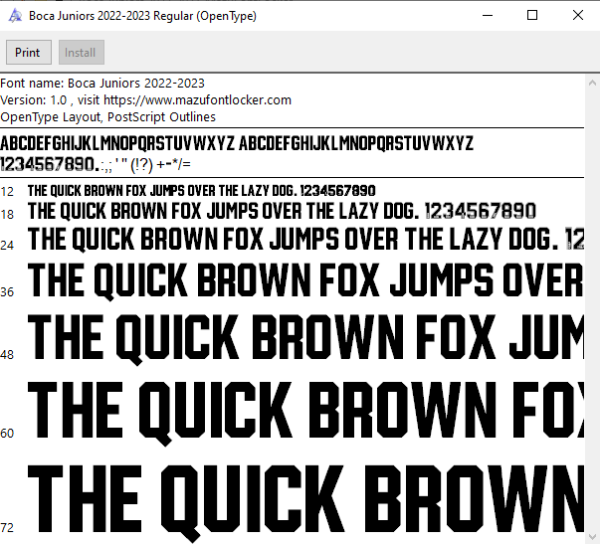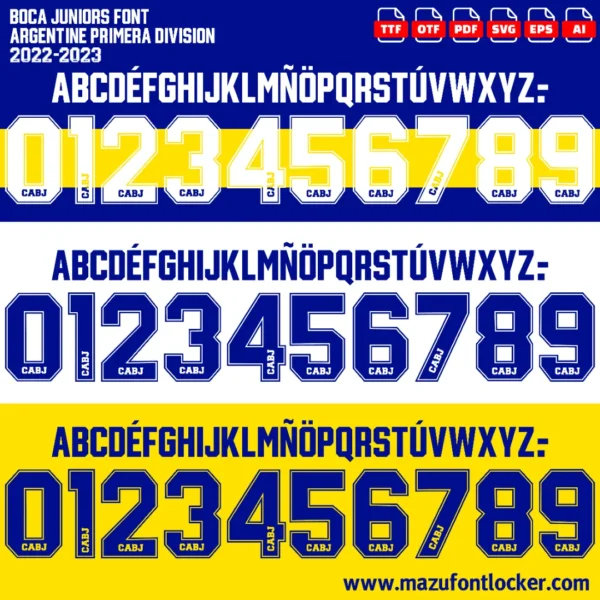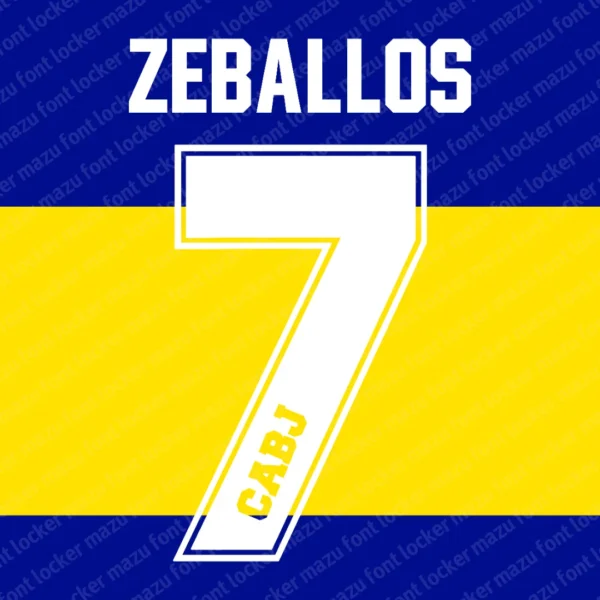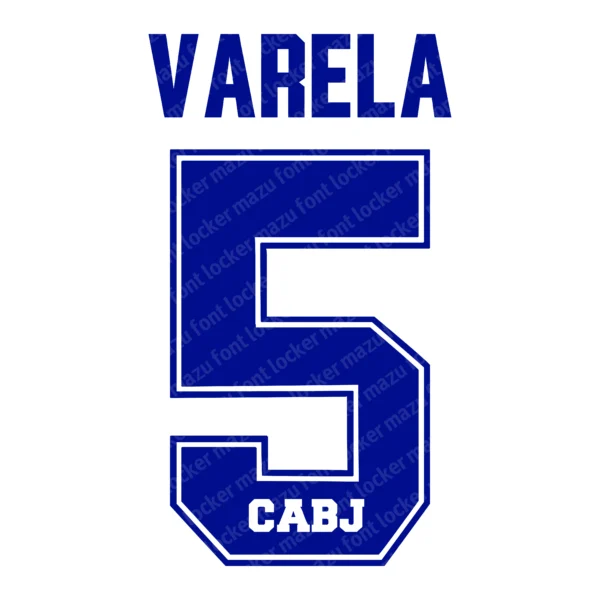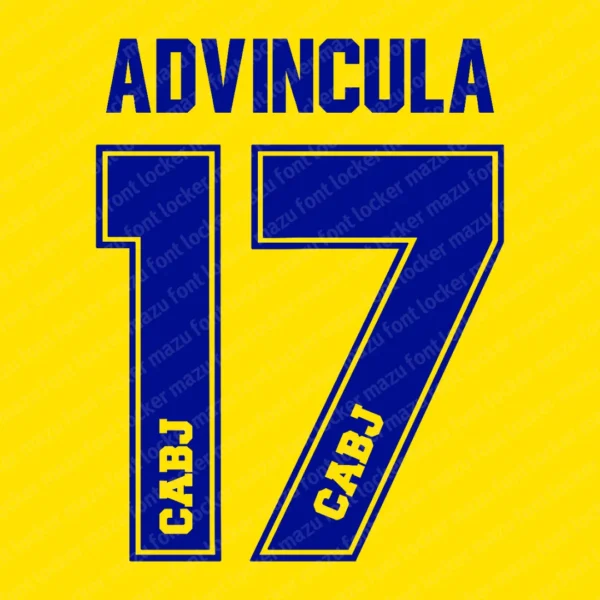
Boca Juniors 2022-2023 Font Vector – Legendary Boca La Bombonera Glory
This premium font captures the bold, fierce, and championship-driven typography that perfectly embodies the spirit of the Xeneizes — delivering pure Argentine fire, relentless ambition, warrior-like determination, attacking flair, and the legendary football culture that transformed Boca Juniors into one of South America’s most feared and celebrated football giants.
Boca Juniors 2022-2023 Font Vector – Stunning Xeneizes Champions Typeface
The Boca Juniors 2022-2023 Font Vector is a premium typeface that accurately recreates the official match lettering worn by Boca Juniors during the 2022-2023 season. This high-quality vector font kit captures the bold, passionate, and iconic typography that defines one of the biggest clubs in South American football.
Designed for professional designers, football enthusiasts, and Boca Juniors supporters, the Boca Juniors 2022-2023 Font Vector delivers authentic results for jersey mockups, fan merchandise, retro football projects, social media graphics, and matchday designs. It perfectly complements the legendary blue-and-gold kits worn by Los Xeneizes throughout the 2022-2023 campaign.
Why Choose Boca Juniors 2022-2023 Font Vector
This font stands out thanks to its faithful recreation of the official shirt lettering used by Boca Juniors during the 2022-2023 season. Every character has been carefully crafted to match the authentic player names and numbers seen on the pitch. Whether you are designing realistic kit concepts or creating football-themed artwork, the Boca Juniors 2022-2023 Font Vector delivers professional-quality authenticity.
The letterforms feature a clean, athletic, and powerful design that reflects Boca Juniors’ legendary status and La Bombonera spirit. The balanced proportions and sharp detailing provide excellent readability while maintaining the club’s passionate Argentine identity.
The numerals are bold, modern, and highly recognizable, closely matching the official squad numbers used throughout the 2022-2023 season. The vector format ensures perfect scalability for both digital and print applications.
• Complete uppercase A–Z and numbers 0–9 in authentic Boca Juniors 2022-2023 style
• Includes accurate crest glyph positioning for realistic jersey customization
Boca Juniors 2022-2023 Season
The 2022-2023 season was a memorable campaign for Boca Juniors. With their passionate fanbase and rich history, the club competed fiercely in the Argentine Primera División and Copa Libertadores, delivering intense matches and showcasing the never-say-die spirit that defines the Xeneizes.
The team continued to honor the legacy of La Bombonera with thrilling performances and strong squad depth.
The Boca Juniors 2022-2023 Font Vector is an independently designed typeface package created to replicate the official shirt lettering style used by Boca Juniors during the 2022-2023 season. It is ideal for retro football projects, jersey customization, fan artwork, historical recreations, and sports design work.